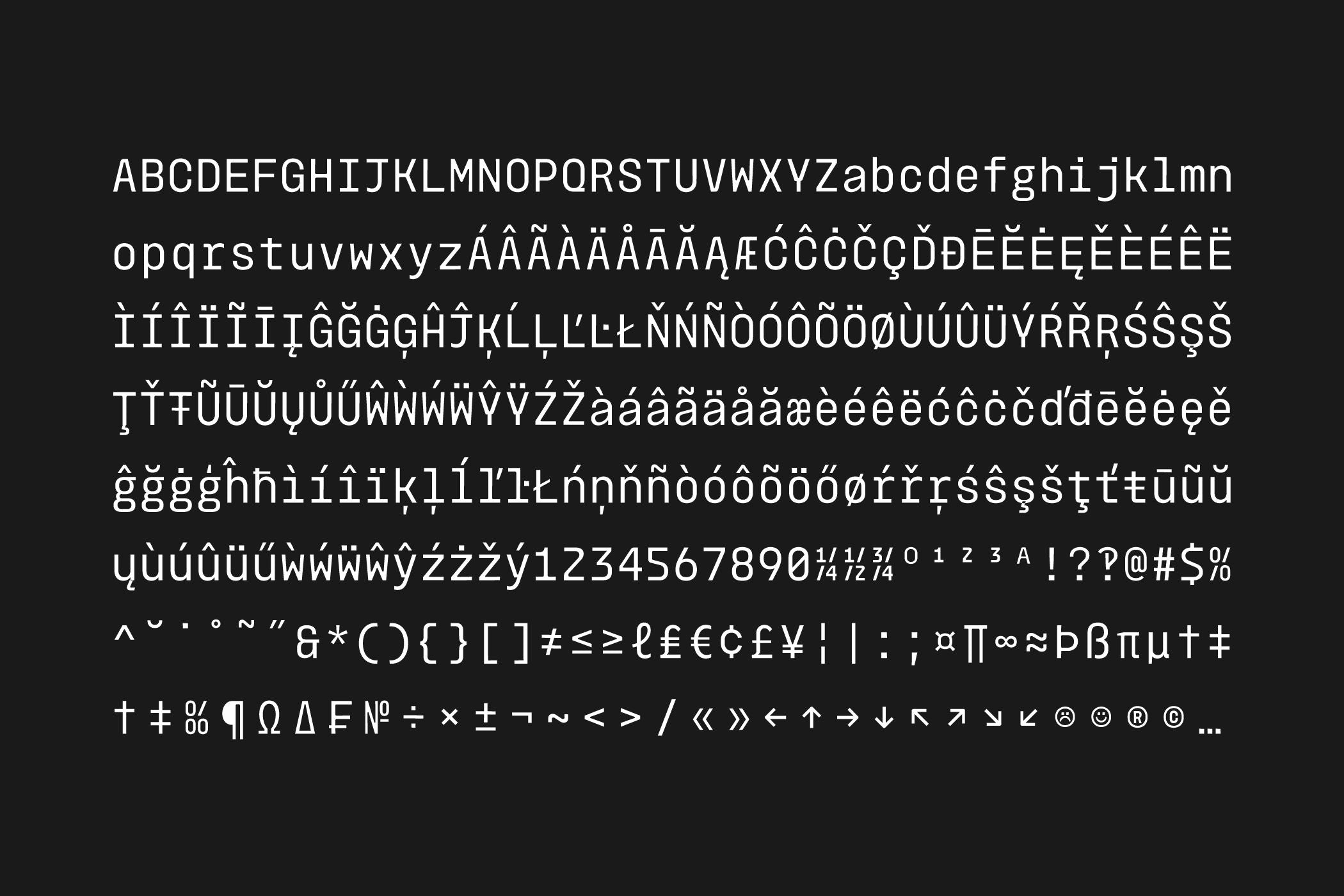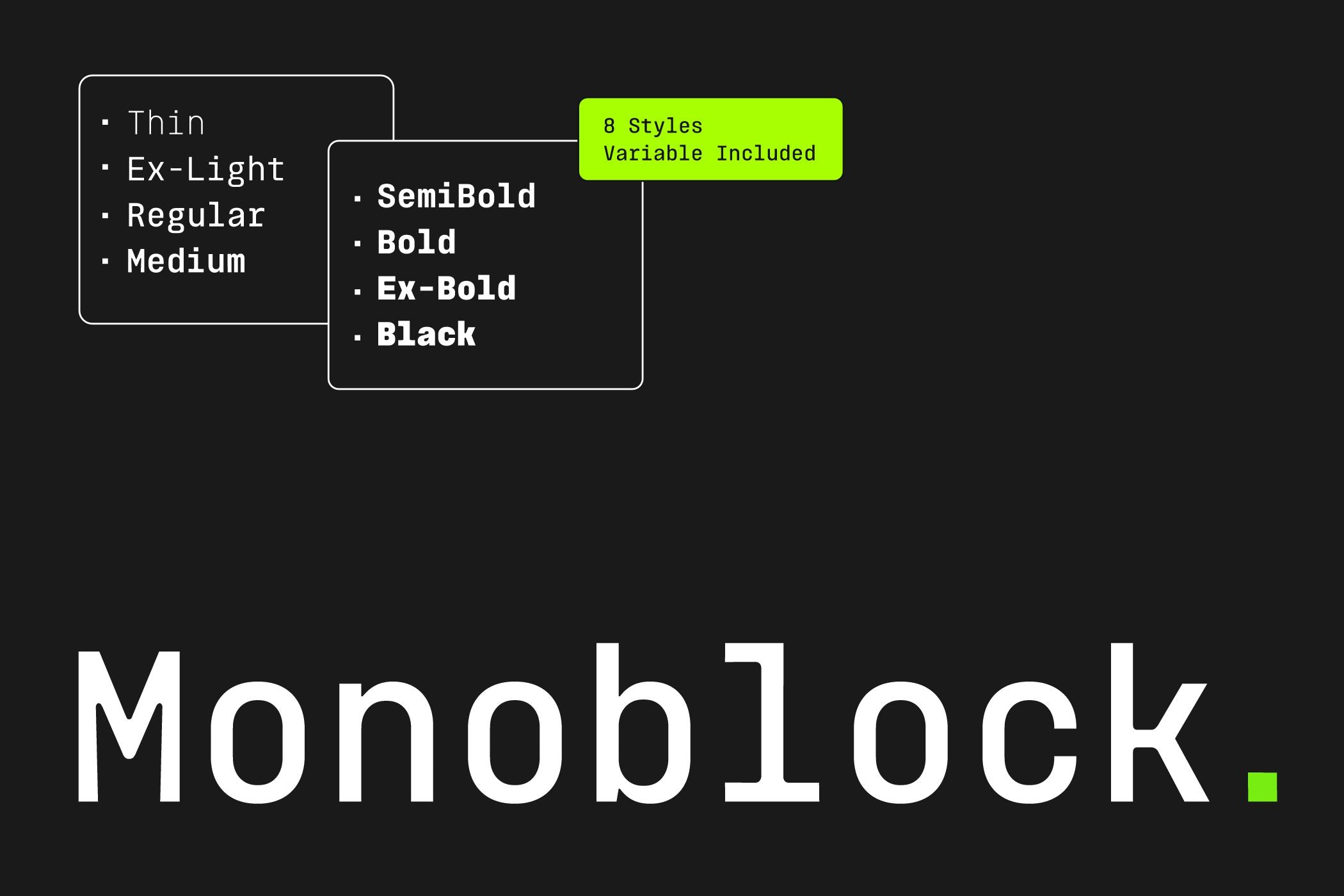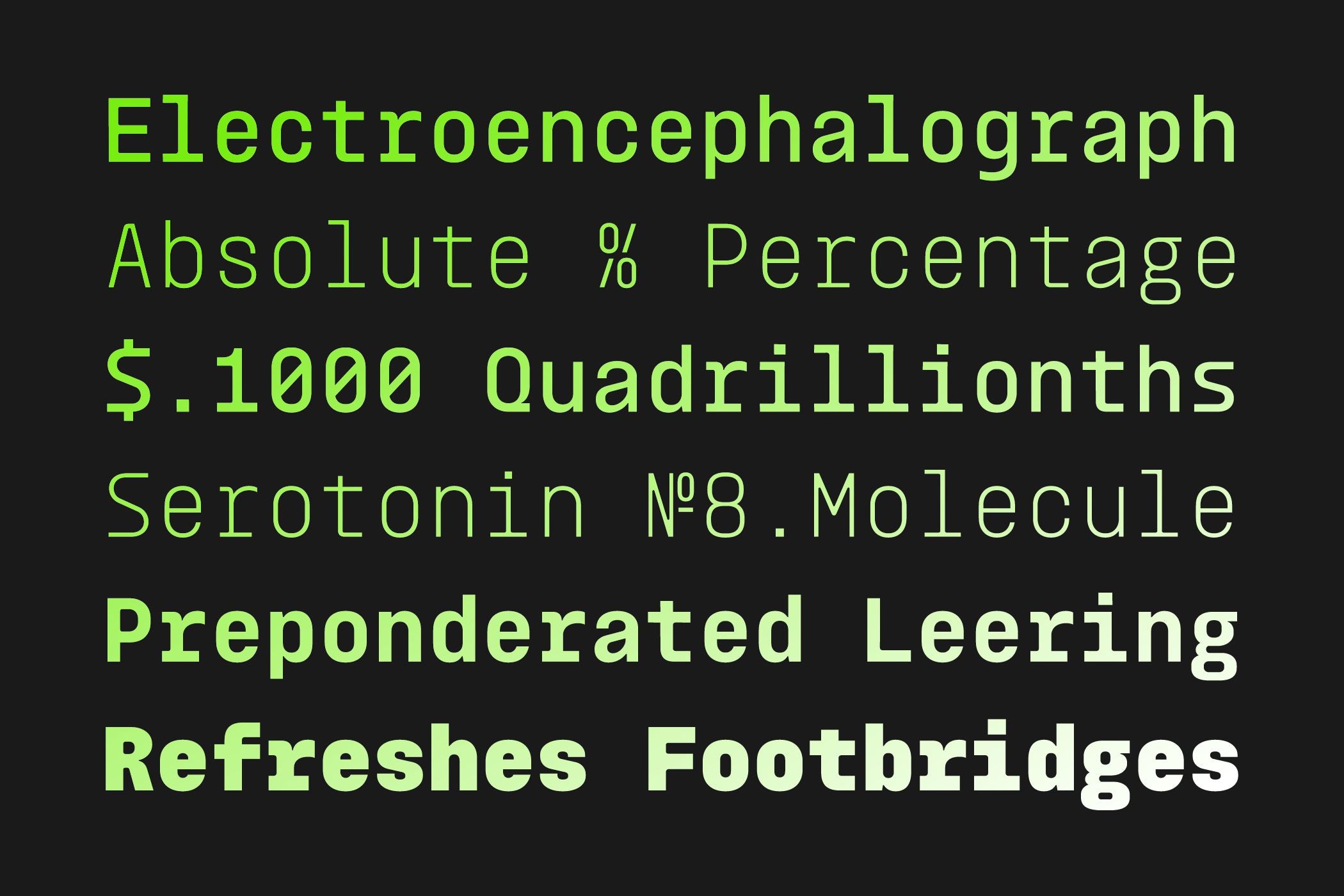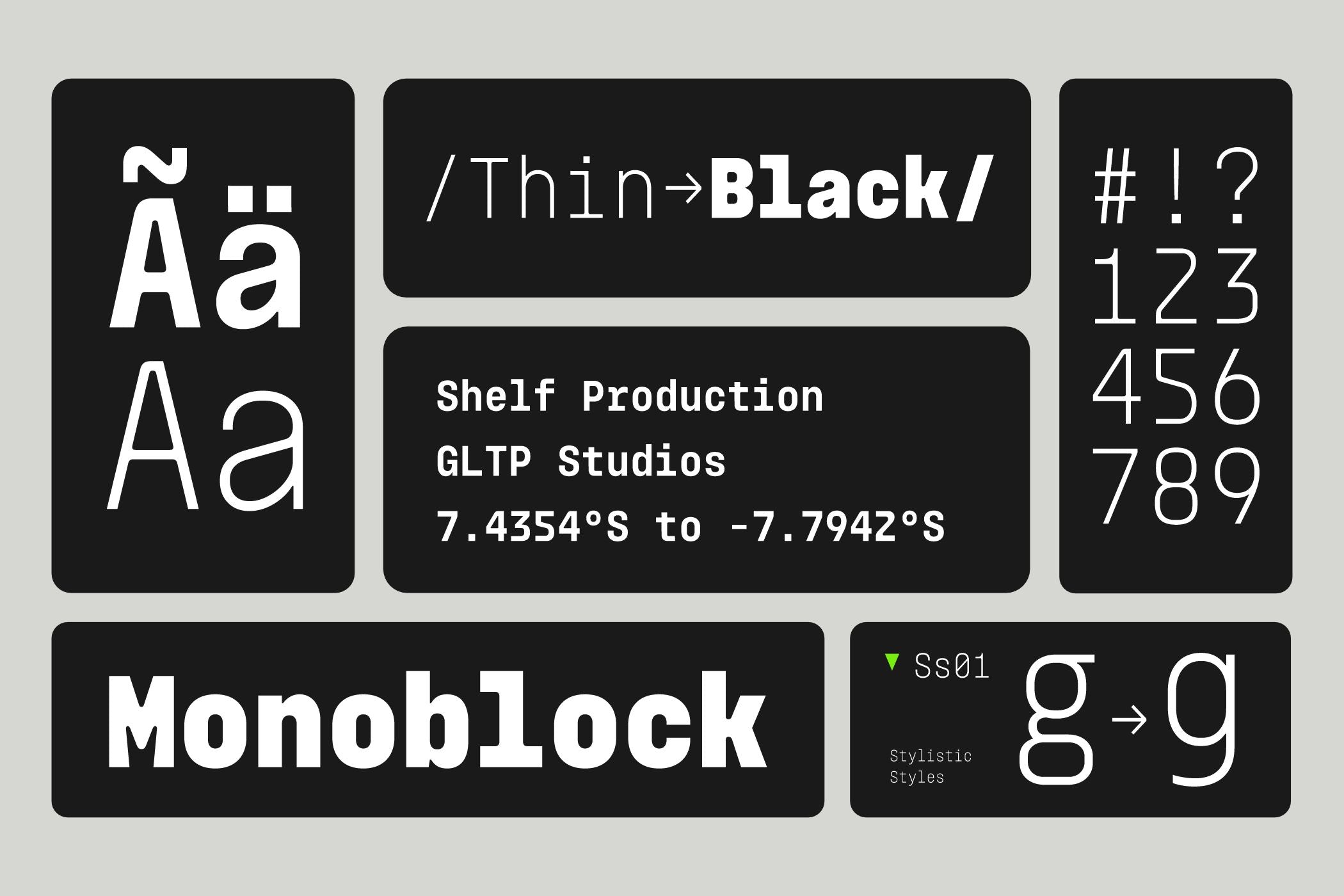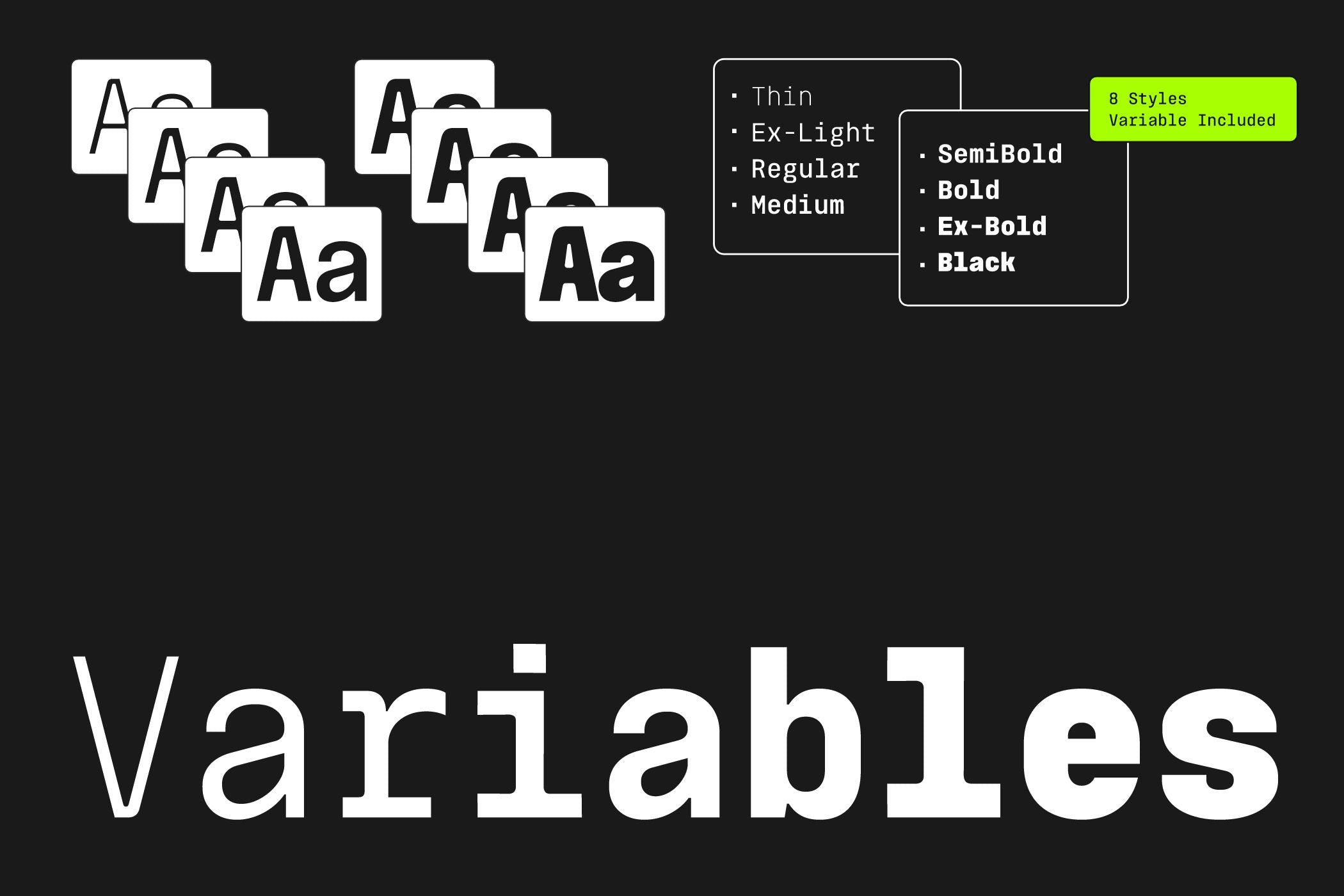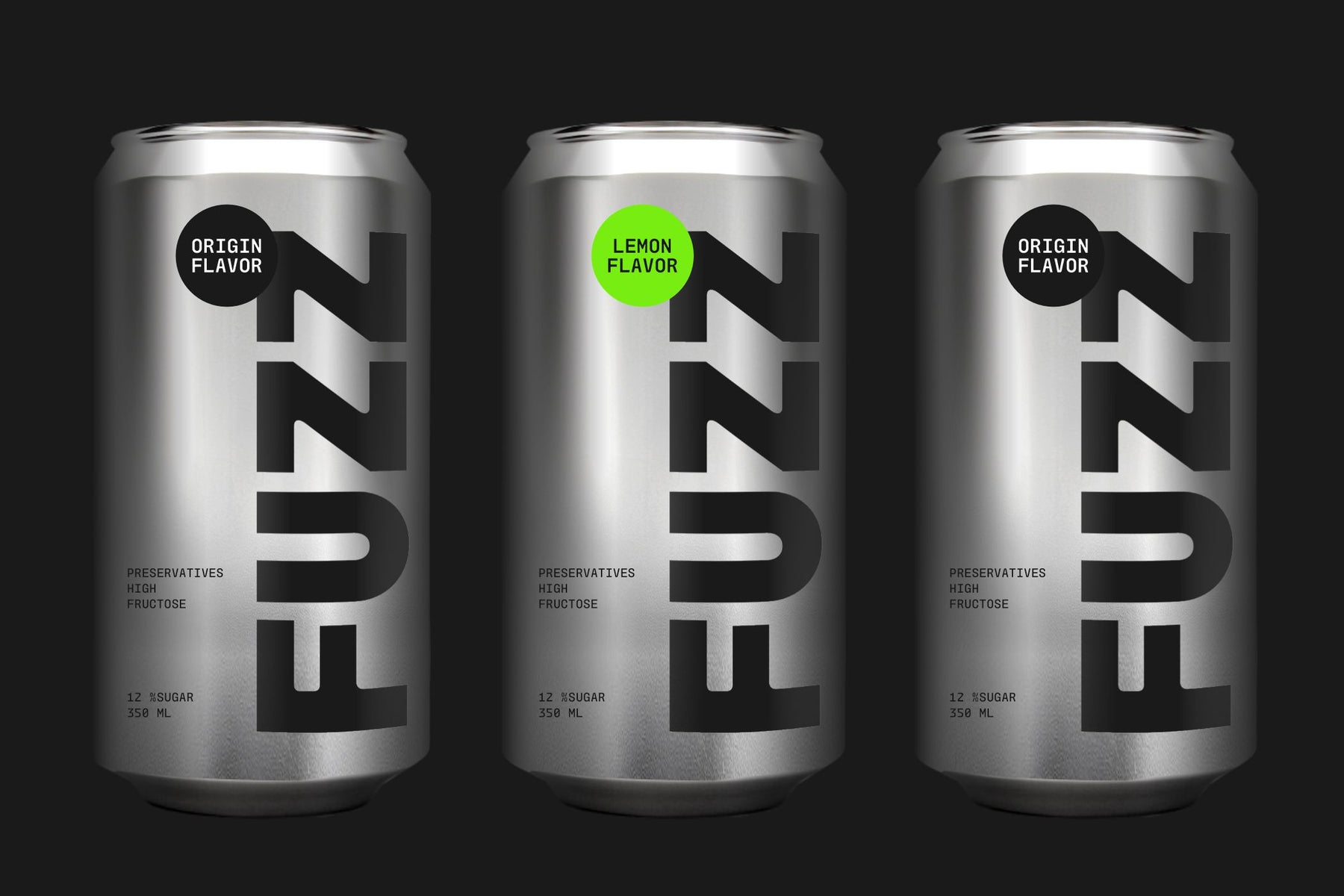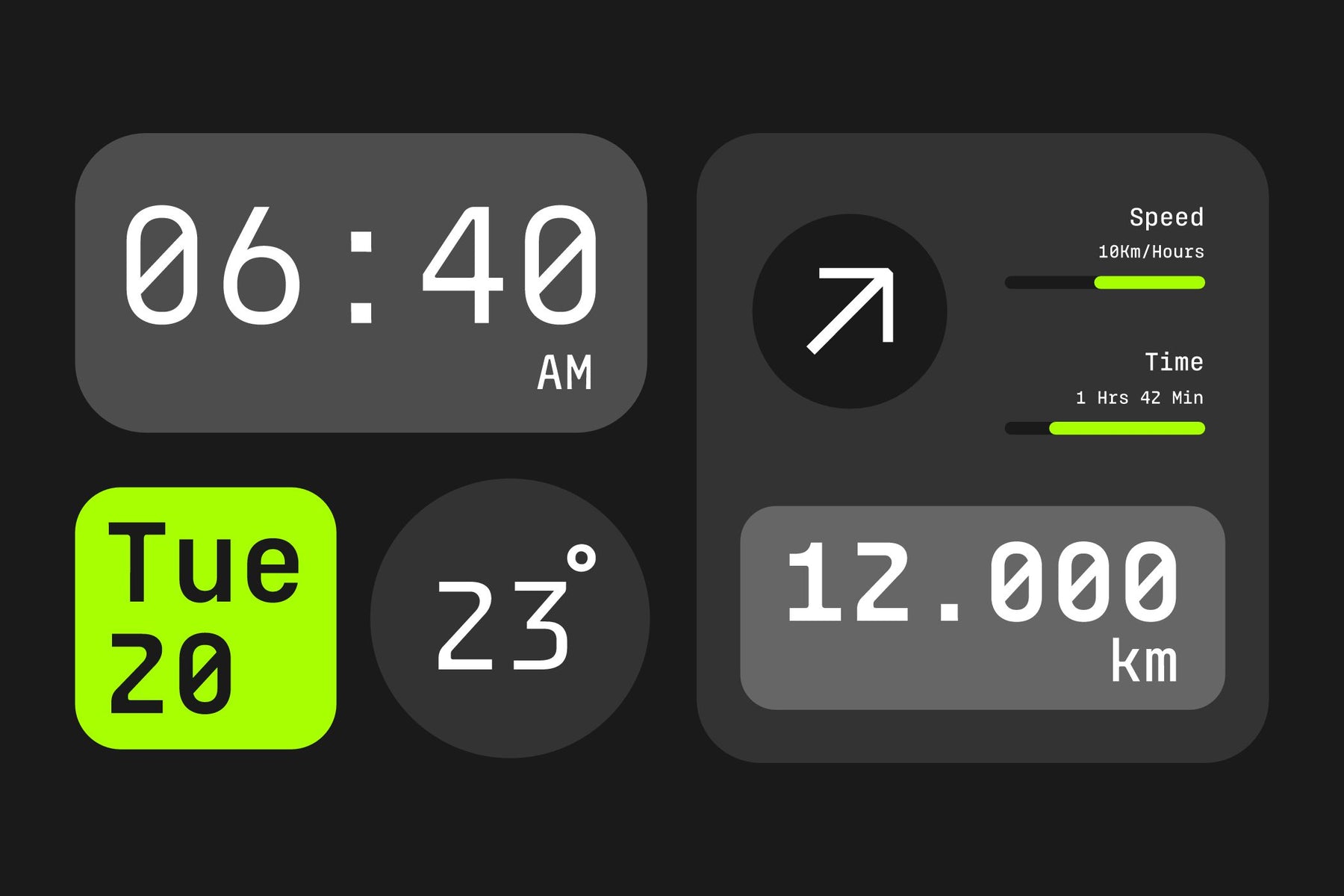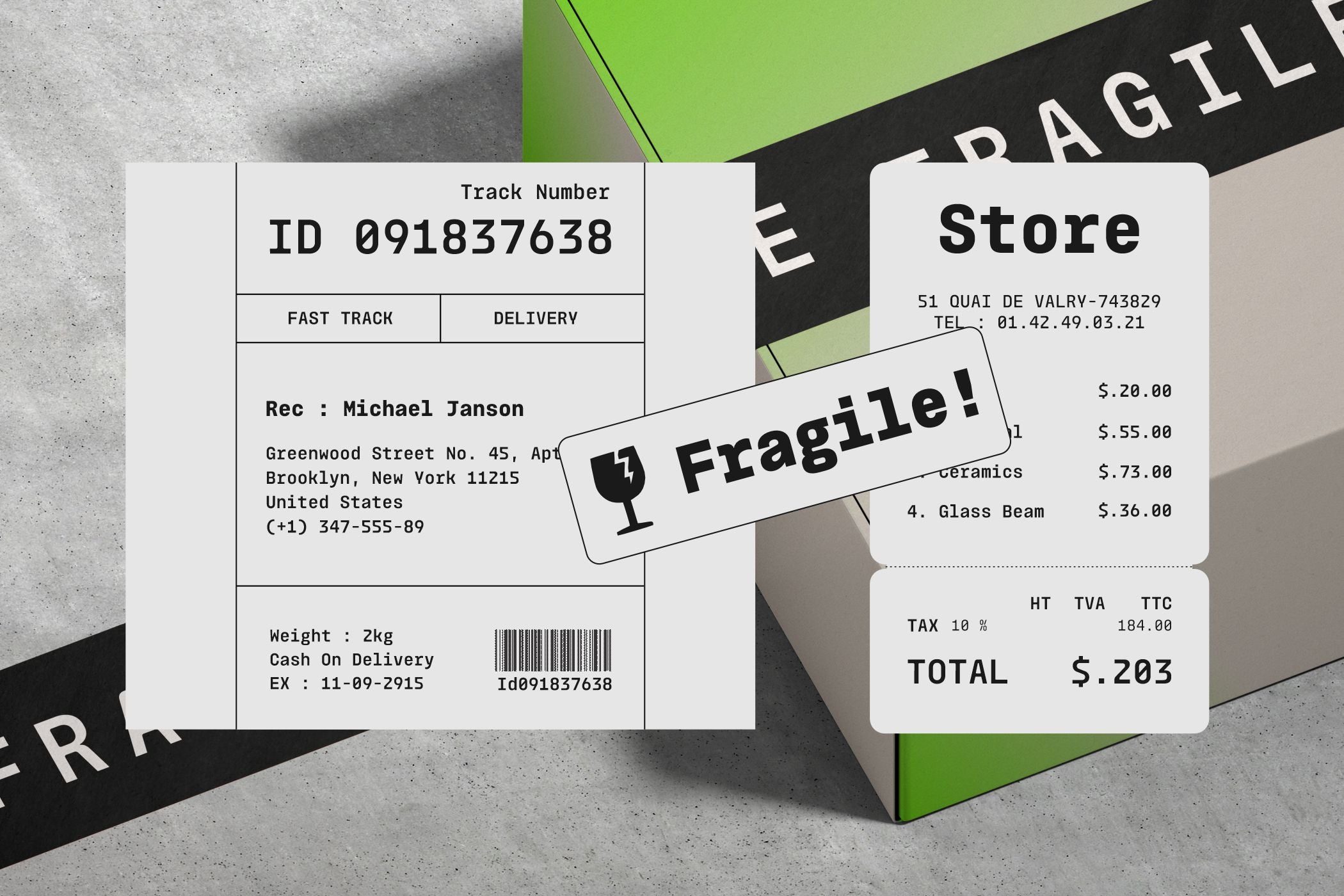
Monoblock created by Glowtype is a contemporary monospaced typeface family designed with precision, clarity, and functionality at its core. Rooted in the traditions of classic typewriter fonts yet refined for modern digital environments, Monoblock balances technical accuracy with a clean, versatile aesthetic.
With consistent spacing across all characters, Monoblock ensures readability and alignment, making it an excellent choice for coding, user interfaces, technical documents, tabular data, and design systems. Its structured geometry and even rhythm create a stable and reliable text flow, while its multiple weights — from Thin to Black — provide flexibility for both functional and expressive use.
Whether applied to screen-based programming environments, editorial layouts, or branding projects that demand a rational and minimalist tone, Monoblock stands as a professional mono font family that merges utility with contemporary design elegance.